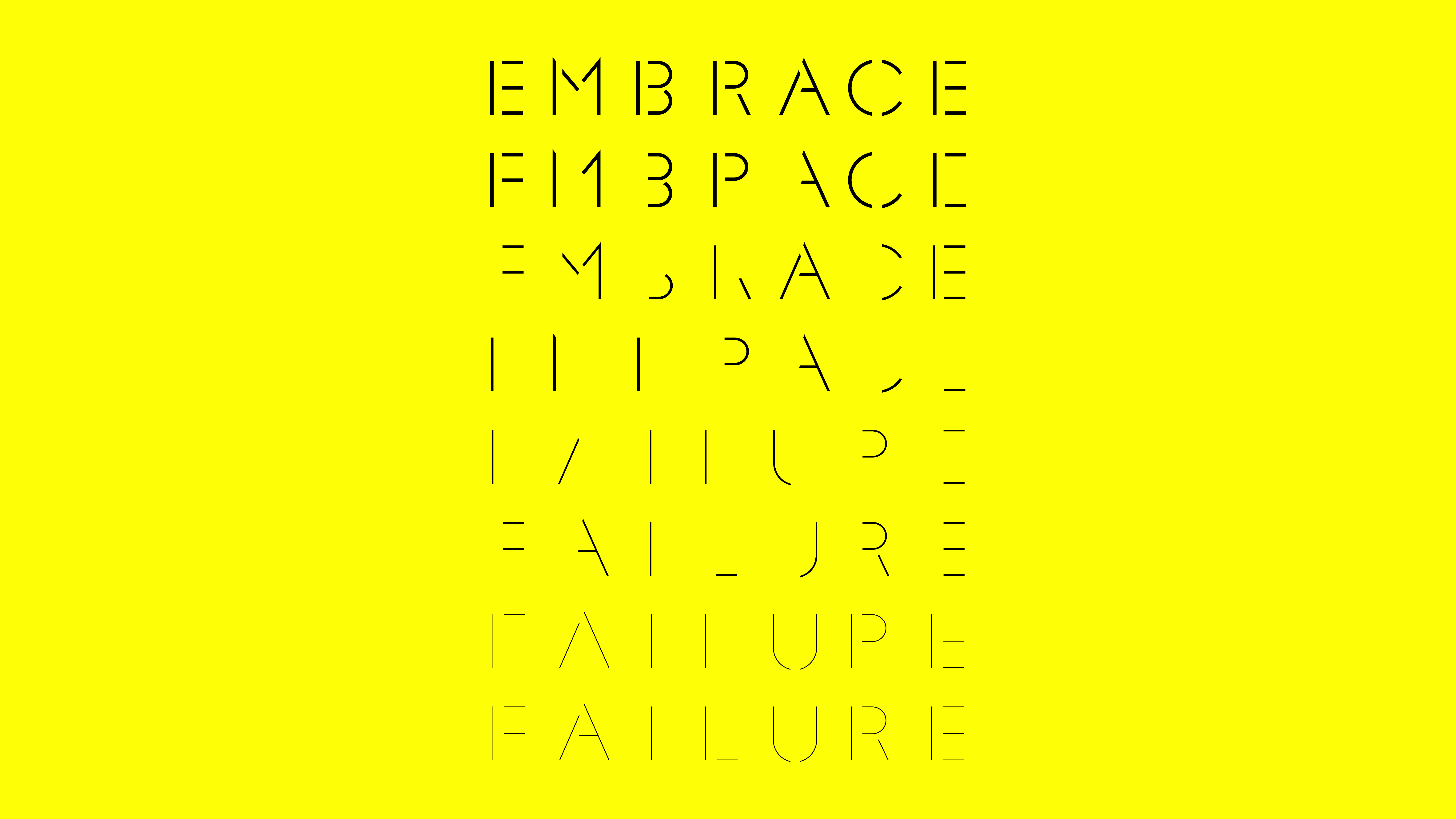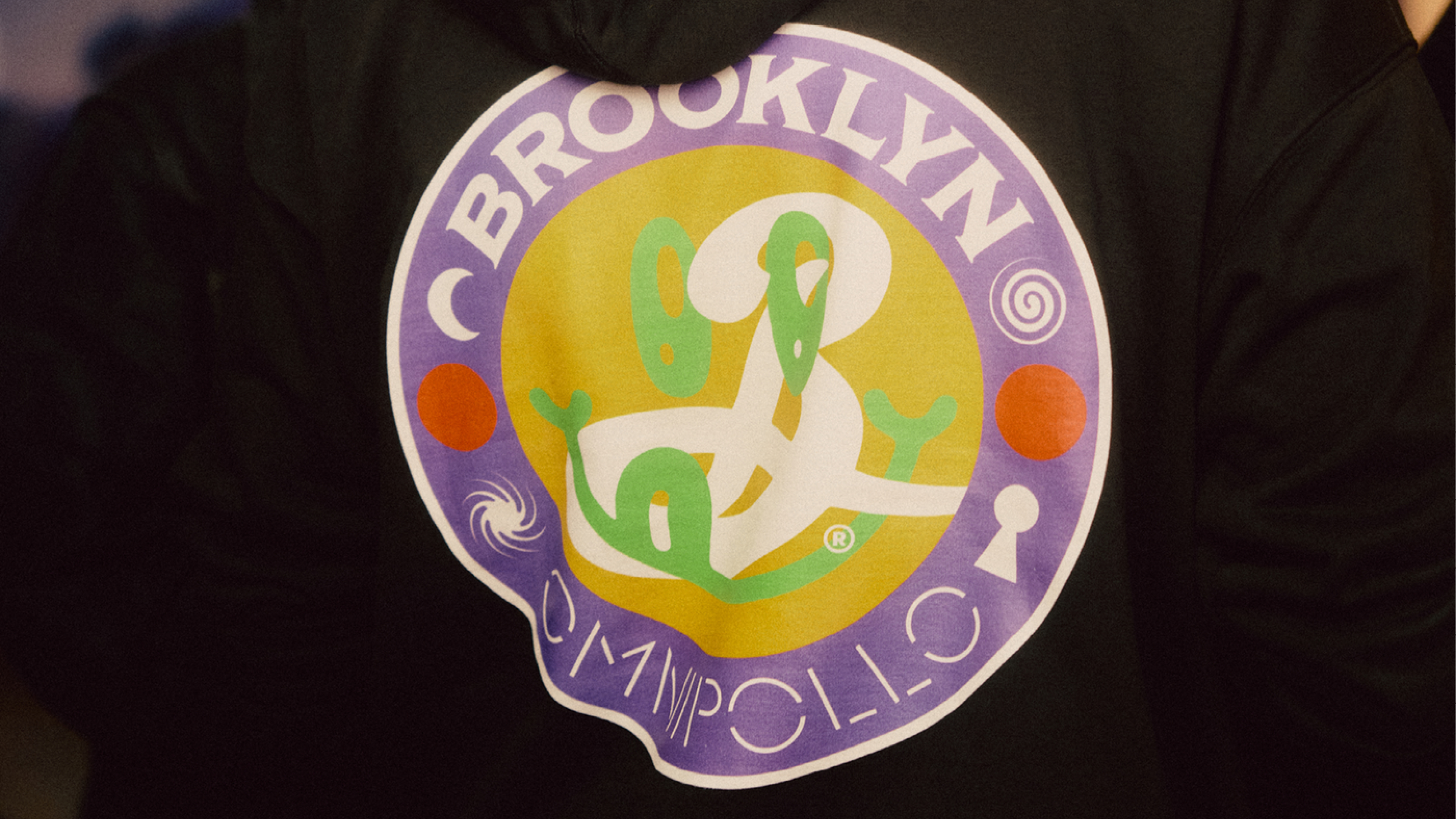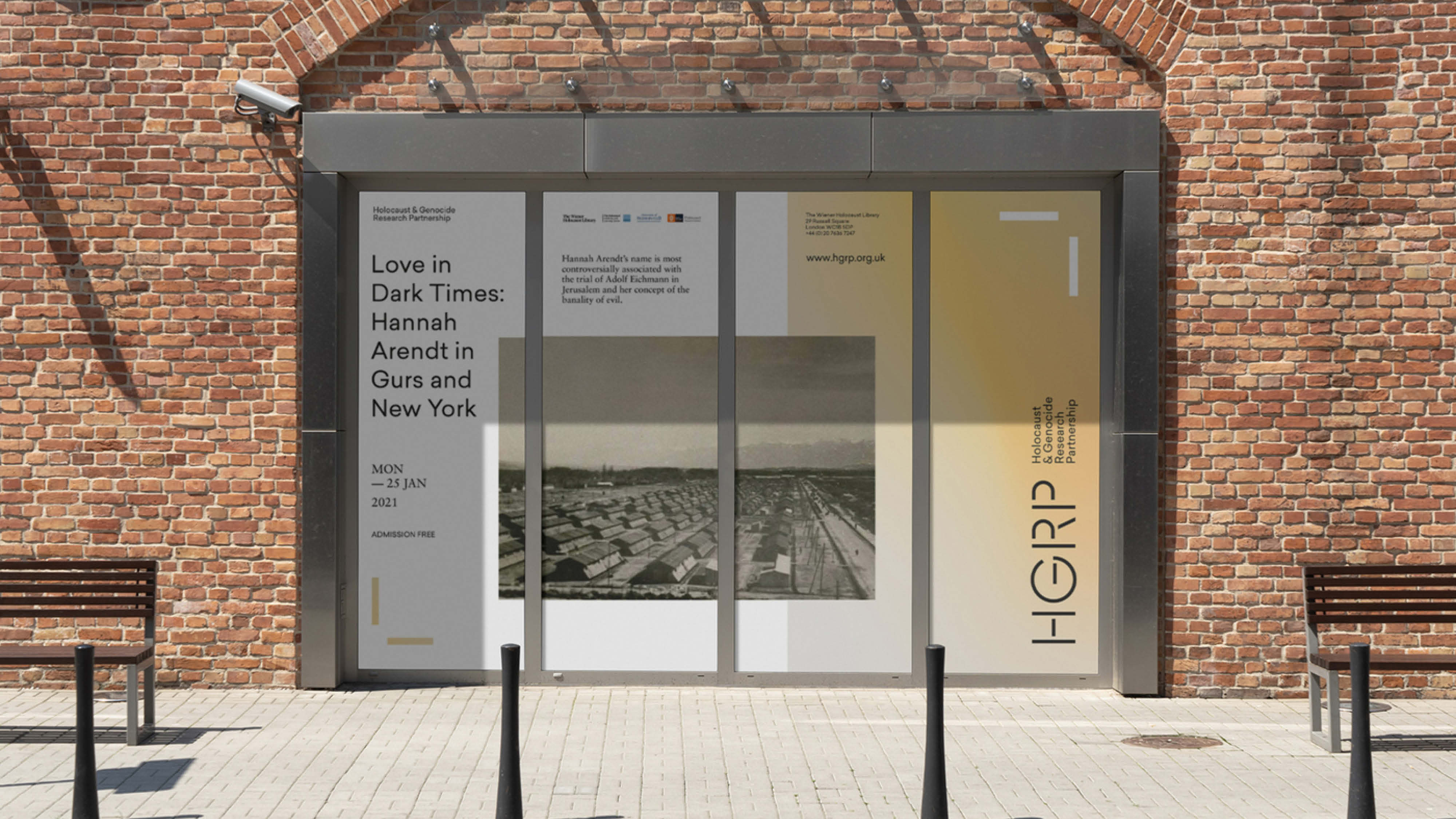
F37 Glaser Stencil
A modern, digital revival of a typeface from one of the world’s most celebrated graphic designers.
Glaser Stencil was created in 1967 by US illustrator and graphic designer Milton Glaser. He first used the font for a Carnegie Hall bill poster. The letterforms referenced traditional stencilling techniques of the 1940s and 1950s and became synonymous with American graphic design of that period. Glaser later went on to develop the famous ‘I Heart New York’ logo that’s still widely used today. As graphic design went digital, Glaser Stencil’s bold weight was adapted for the computer age. However, its lighter weights weren’t modified for digital use and more or less disappeared. Working with Milton Glaser directly, we’ve restored all of Glaser Stencil’s forgotten weights and made them accessible to the digital generation for the first time. An all-caps font, F37 Glaser Stencil comes in four weights — Extra Light, Light, Medium, and Demi (although we’d recommend that Extra Light is only used for large display purposes). F37 Glaser Stencil also supports various languages, including Cyrillic.
F37® × Milton Glaser
F37 Glaser Stencil
The Designer
Milton Glaser was among the most celebrated graphic designers in the United States.
He had the distinction of one-man shows at the Museum of Modern Art and the Georges Pompidou Center. He was selected for the Lifetime Achievement Award of the Cooper Hewitt National Design Museum (2004) and the Fulbright Association (2011), and in 2009 he became the first graphic designer to receive the National Medal of the Arts award. As a Fulbright scholar, Glaser studied with the painter Giorgio Morandi in Bologna, and was an articulate spokesman for the ethical practice of design. He opened Milton Glaser, Inc. in 1974 and, following his passing, his output remains one of the most prolific of any graphic designer to this day.